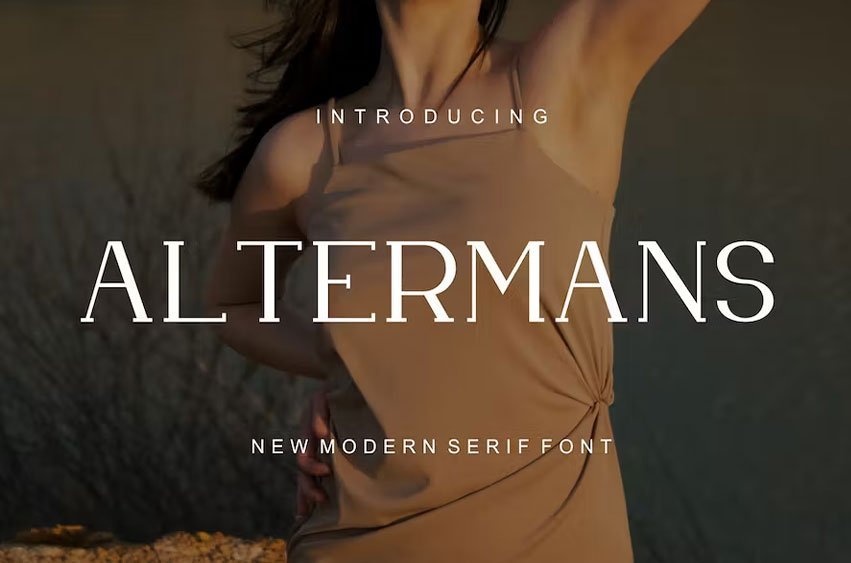
Altermans Font Roghan Adventure Fonts modern font is a bold and authentic display font. The font is suitable for any branding project. Outstanding in a wide range of contexts.